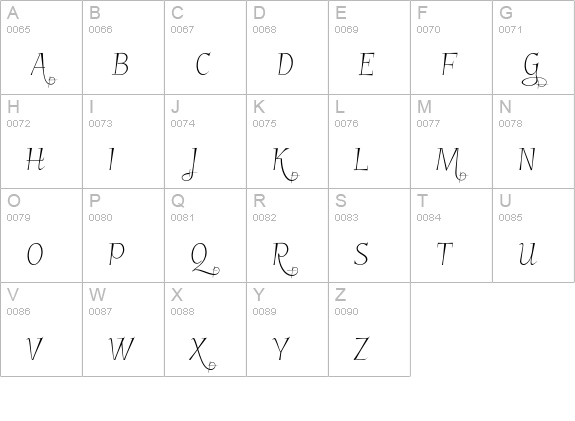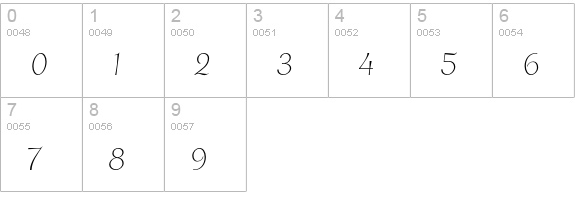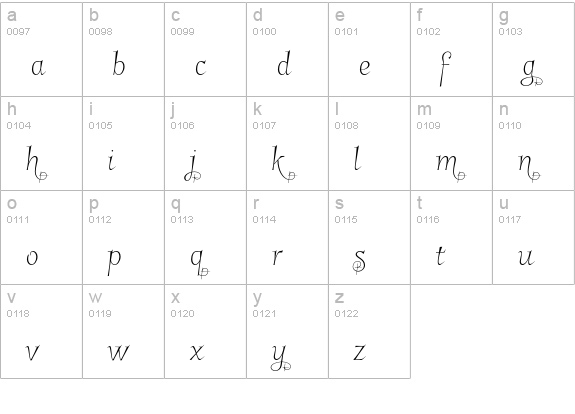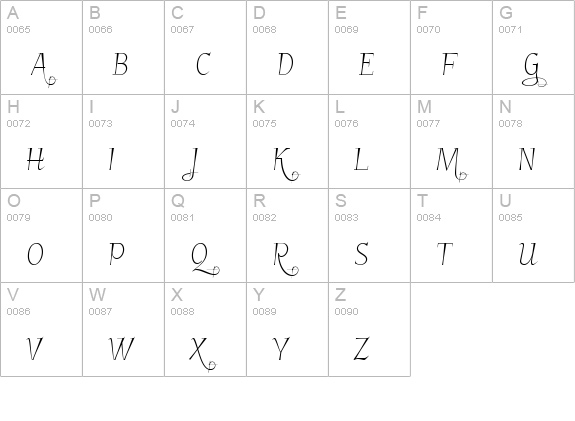
GarineldoNo02 Font Details
GarineldoNo02 font is a stunning typeface that exudes elegance and sophistication. Its intricate design and attention to detail make it perfect for a wide range of creative projects. Whether you're designing a logo, crafting a beautiful invitation, or creating eye-catching posters, GarineldoNo02 font will add a touch of class to your work. What sets GarineldoNo02 font apart is not only its aesthetic appeal but also its versatility. It can effortlessly adapt to various design styles, from modern and minimalist to vintage and ornate. Its clean lines and harmonious curves create a balanced and pleasing visual experience. One of the best things about GarineldoNo02 font is that it is free. Yes, you read that right! This exquisite font is freely available to download at FontsMarket.com. Now, you can enhance your designs without having to worry about breaking the bank. With GarineldoNo02 font, you'll have access to a vast array of characters, including uppercase and lowercase letters, numbers, punctuation marks, and special symbols. This font also offers multilingual support, making it suitable for projects in different languages. Whether you're a professional graphic designer or a creative enthusiast, GarineldoNo02 font is a must-have in your font collection. Its timeless beauty and versatility make it a go-to choice for any design project. Download GarineldoNo02 font for free at FontsMarket.com and embark on a journey of creativity and innovation.